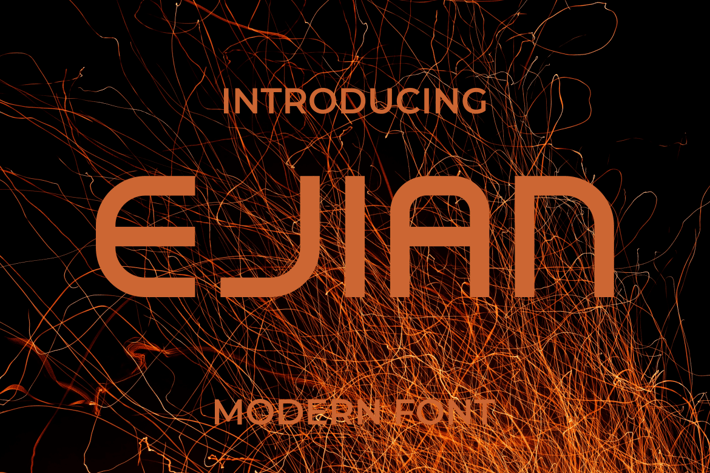
Ejian Modern Font
Introducing our new product Ejian Font - Modern Font
Ejian Font - Modern Font is a bold and authentic display font. The font is suitable for any branding project like logo, t-shirt printing, esport, and many more. outstanding in a wide range of contexts.